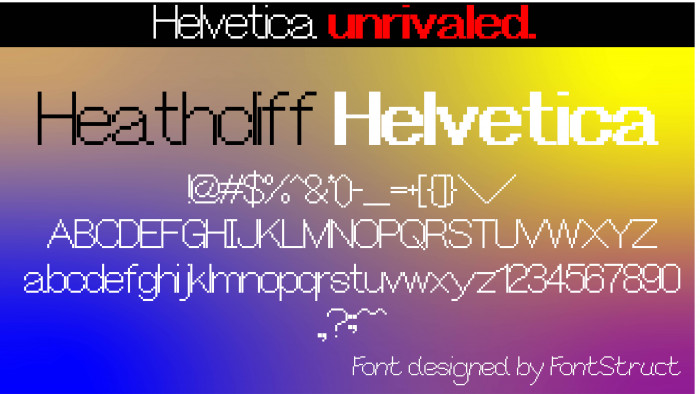
This looks good so far... Nicely done!
Here is a sample:
That's a good Helvetica-styled font you have there, Yoshigahara Kunihisa! Note the serifness of your "I", though... But, all in all, 10 out of 10 - this is the best font I'd ever seen!